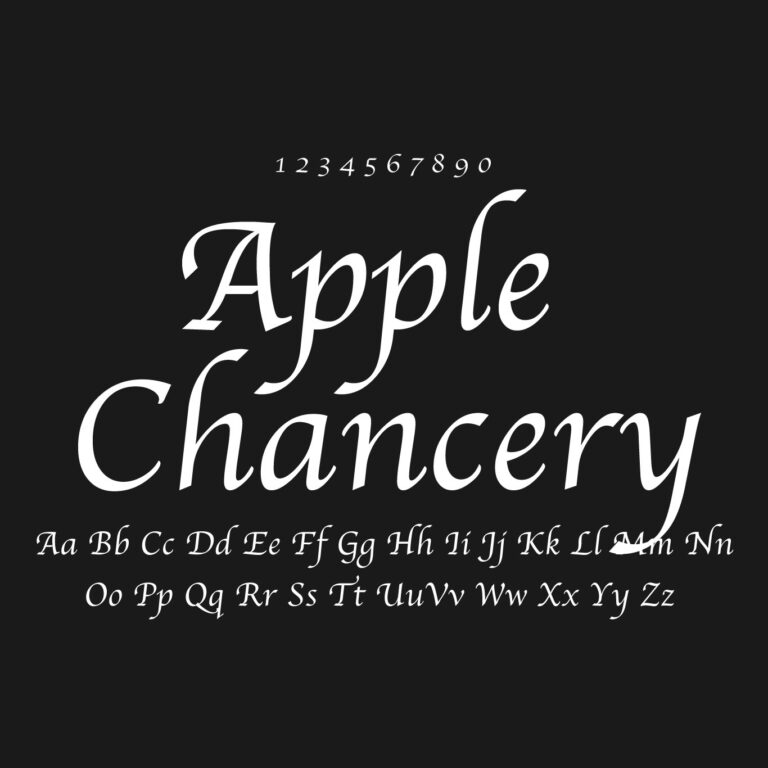
Download Apple Chancery font for free in TTF format. Apple Chancery is a calligraphic typeface created for Apple, combining the flowing rhythm of italic handwriting with the more structured proportions of traditional Renaissance chancery scripts.
Designed by Charles Bigelow and Kris Holmes of the Bigelow & Holmes type foundry and released in 1993, Apple Chancery was created as a modern interpretation of Italian chancery cursive. Its restrained slant, relatively small x-height and decorative capitals give it a more formal character than casual handwriting fonts, while alternate forms and swashes add variation when supported by the application.
A Modern Chancery Typeface for Apple
Apple Chancery draws on the tradition of Italian chancery writing developed during the Renaissance. Rather than reproducing historical lettering directly, Bigelow and Holmes adapted its proportions and pen-written rhythm for digital typography. The result keeps the narrow, flowing character of chancery cursive without becoming as heavily slanted or ornamental as many decorative script fonts.
The typeface is closely related in concept to Lucida Calligraphy, another design by Bigelow and Holmes, but the two were built with different proportions. Apple Chancery uses a smaller x-height and gentler slant, giving it a more traditional handwritten appearance and making its capitals and ascenders more prominent.
Designed to Show Advanced Typography
Apple Chancery was also used to demonstrate Apple’s advanced typography capabilities. The font contains alternate letterforms and contextual variations that can make repeated characters look less mechanical, although access to these features depends on the software and text engine being used.